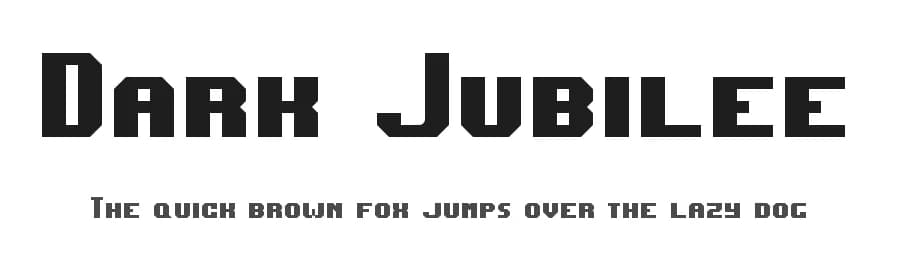
About Dark Jubilee Font
Dark Jubilee is a sans-serif font designed by Staffan Vilcans. It includes 153 glyphs, a regular weight, TTF (TrueType) format, and 195 languages. Dark Jubilee is free to download; check the license details on this page before commercial use. Sans-serif fonts like Dark Jubilee work best for clean body text, user interfaces, branding, and modern layouts.
Dark Jubilee Font is a versatile sans-serif font that works for both headings and body text. Pair it with a contrasting serif or slab serif font to add visual interest and a clear distinction between titles and body copy.
Dark Jubilee Font
Dark Jubilee Font is a sans serif typeface by Staffan Vilcans, ideal for logos, invitations, branding, and creative projects.